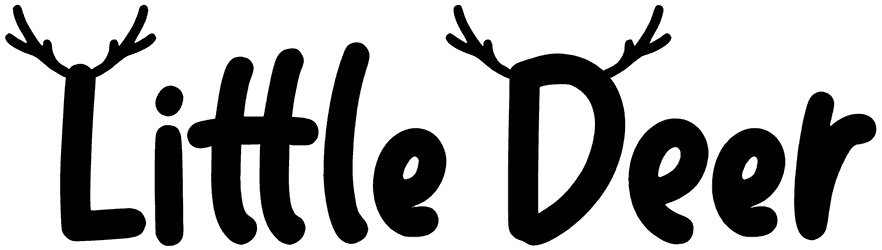
Little Deer Font
Get your words customized with this script font to give a modern, realistic, and modest visual to your words. The Little Deer font, with its soft and bold style, covers all characters. Just give this Christmas font a chance and set it on your new layouts, namely a Christmas postcard, and convey a soft vibe to your viewers.